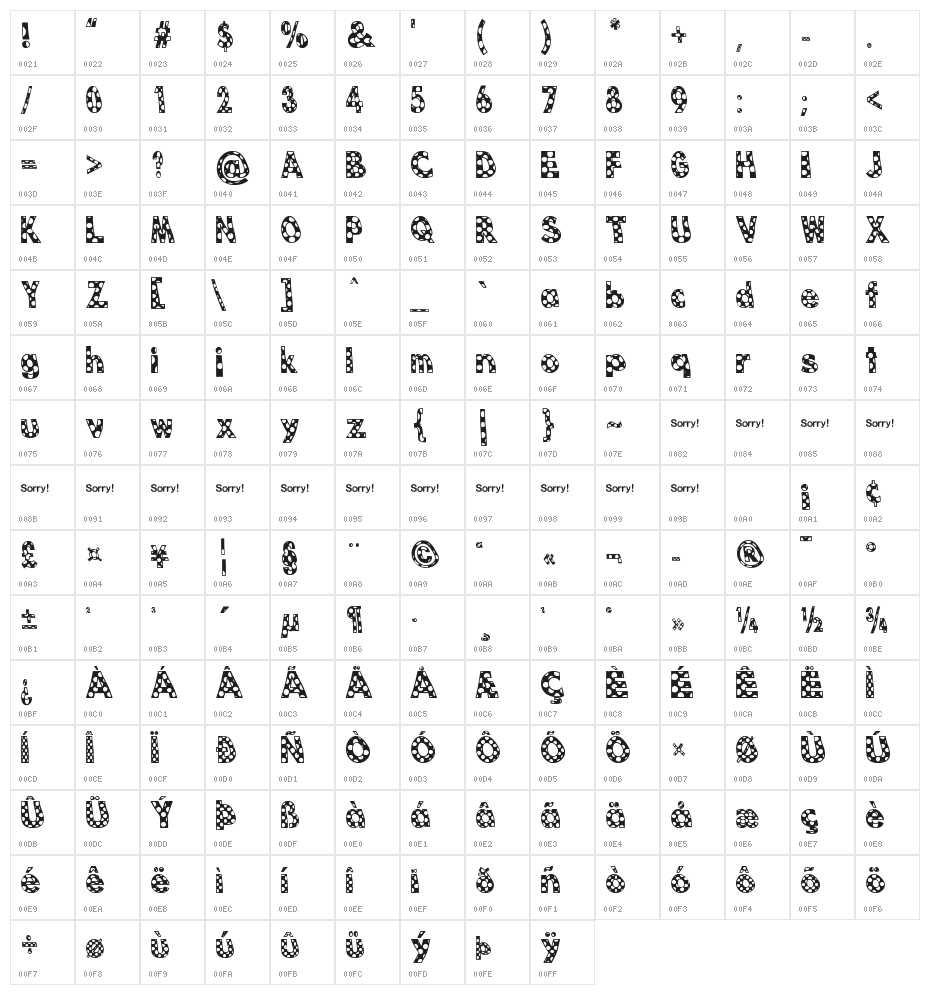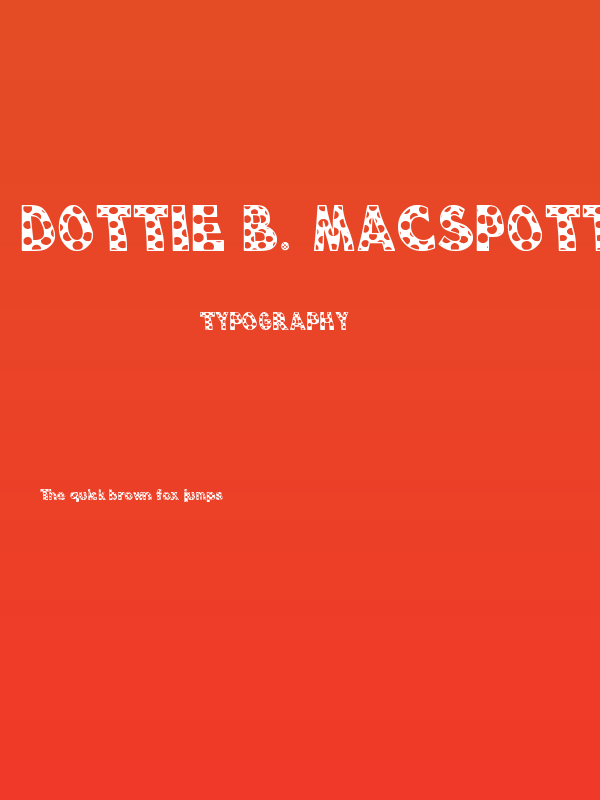
Dottie B. MacSpotter Font
Dottie B. MacSpotter Description
This playful and whimsical font features bold, uppercase and lowercase letters adorned with a pattern of large, irregular polka dots. The characters are thick and rounded, giving a sense of fun and creativity. The numbers and special characters follow the same design, ensuring consistency across all elements. The font's unique style makes it stand out, perfect for projects that require a touch of humor and lightheartedness. Its decorative nature is ideal for children's books, party invitations, or any design that aims to capture attention with a lively and cheerful vibe.
| Overall Style | Playful, Whimsical, Fun |
| Proposed Projects | Ideal for children's books, party invitations, playful branding, and eye-catching posters. |